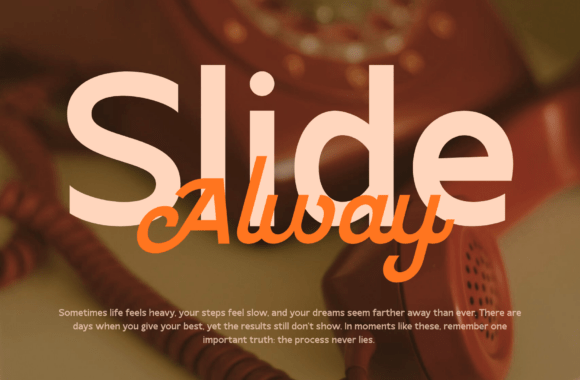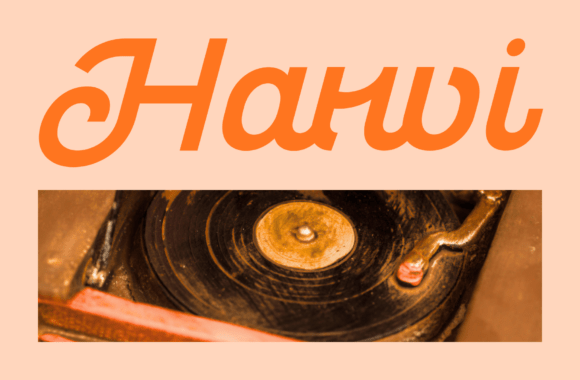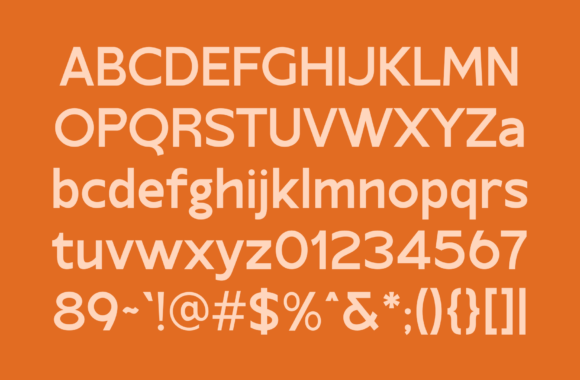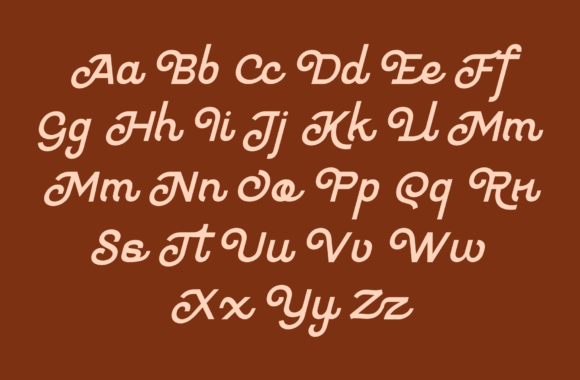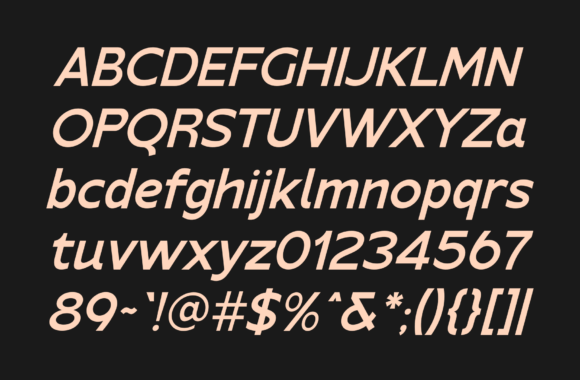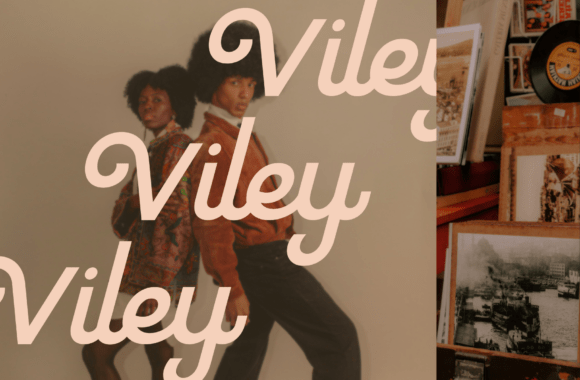
Introduction to Nerva Archane Duo Font
Have you ever stared at a blank design canvas, trying to find the perfect font pairing for your creative project? The struggle is real, especially when you want to convey a specific tone or personality. As designers, we know that typography can make or break the visual identity of our work.
That’s where the Nerva Archane Duo Font comes in – a game-changing design resource that takes the guesswork out of font pairing. This high-quality, dual-style kit features a robust “Sans Serif Type” and a fluid, complementary script, allowing you to create an instant visual hierarchy and tell your brand’s story with ease.
Key Features of Nerva Archane Duo Font
- High-quality font design suitable for various creative projects, including graphic design, digital art, and publishing.
- Available in two font styles: Nerva Archane Duo Regular and Nerva Archane Duo Italic, providing versatility for design applications.
- Designed with high resolution (up to 1024 dpi) for crisp and clear text rendering, ideal for print and digital applications.
- Perfect for designers seeking a unique and elegant font to elevate their creative projects and design portfolios.
Honest Review: Nerva Archane Duo Font
As a designer, I’m always on the lookout for high quality design resources to elevate my creative projects. The Nerva Archane Duo Font has caught my attention, and I’m excited to share my honest review with you.
- ✨ Unique and elegant design style that adds a touch of sophistication to any project.
- ✨ Clean and crisp lines that make it perfect for use on transparent backgrounds.
- ✨ Excellent legibility, even at small font sizes.
- ⚠️ Limited character set, which may not be ideal for projects that require extensive text.
- ⚠️ Some users may find the font a bit too ornate for certain design styles.
Overall, I’m impressed with the Nerva Archane Duo Font. Its unique design style and high quality make it a valuable resource for designers. While it may have some limitations, it’s a great option for projects that require a touch of elegance and sophistication. I’d definitely recommend it for designers looking for a free and versatile font.
How to Use Nerva Archane Duo Font
The Nerva Archane Duo Font is a high-quality design resource ideal for creative projects. This font features a unique and elegant design, perfect for various applications.
The Nerva Archane Duo Font also features a transparent background option, allowing you to easily combine it with other design elements.
To get the most out of the Nerva Archane Duo Font, experiment with different font sizes, colors, and combinations with other design elements. This will help you achieve a unique and professional look for your creative project.
The Nerva Archane Duo Font is ideal for various use cases, including business cards, logos, brochures, and websites. Its elegant design and transparent background option make it perfect for creating visually appealing and professional designs.